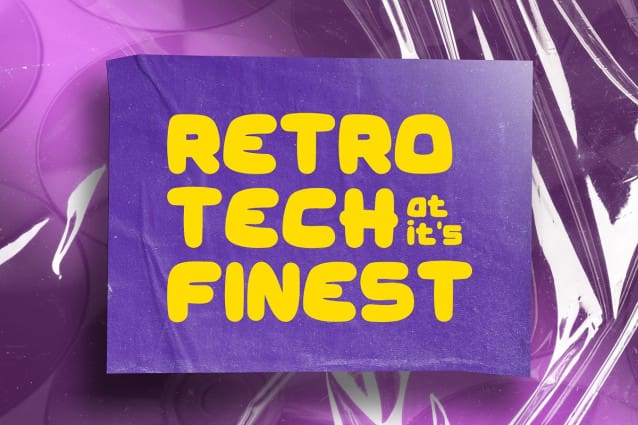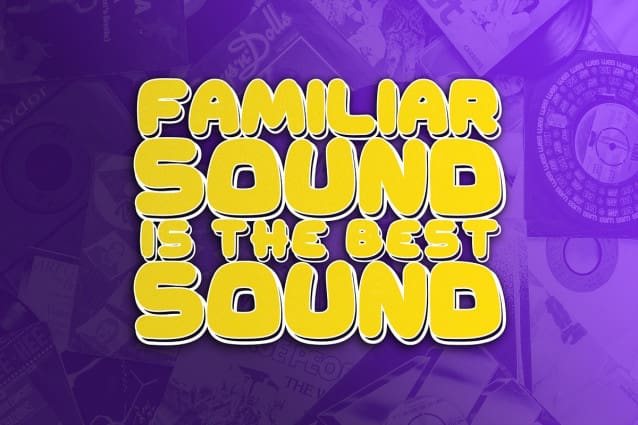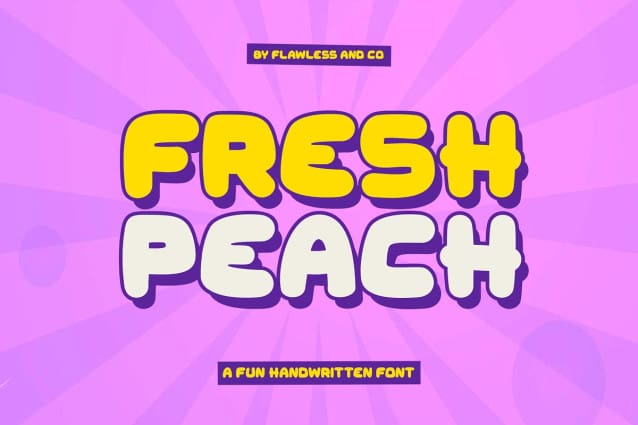
Fresh Peach Font
Fresh Peach Font – a fun and bold handwritten font that brings a burst of energy and playfulness to your designs. With its vibrant and lively letterforms, FreshPeach adds a delightful touch of creativity and excitement. This font is suitable for branding, business, logos, magazines, and others.